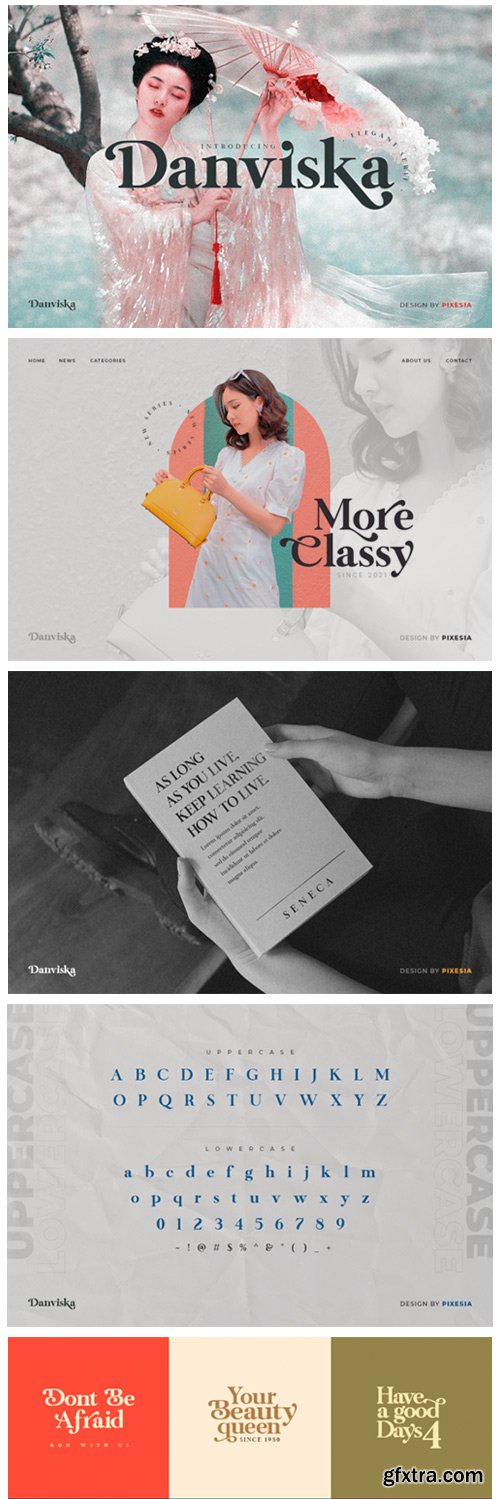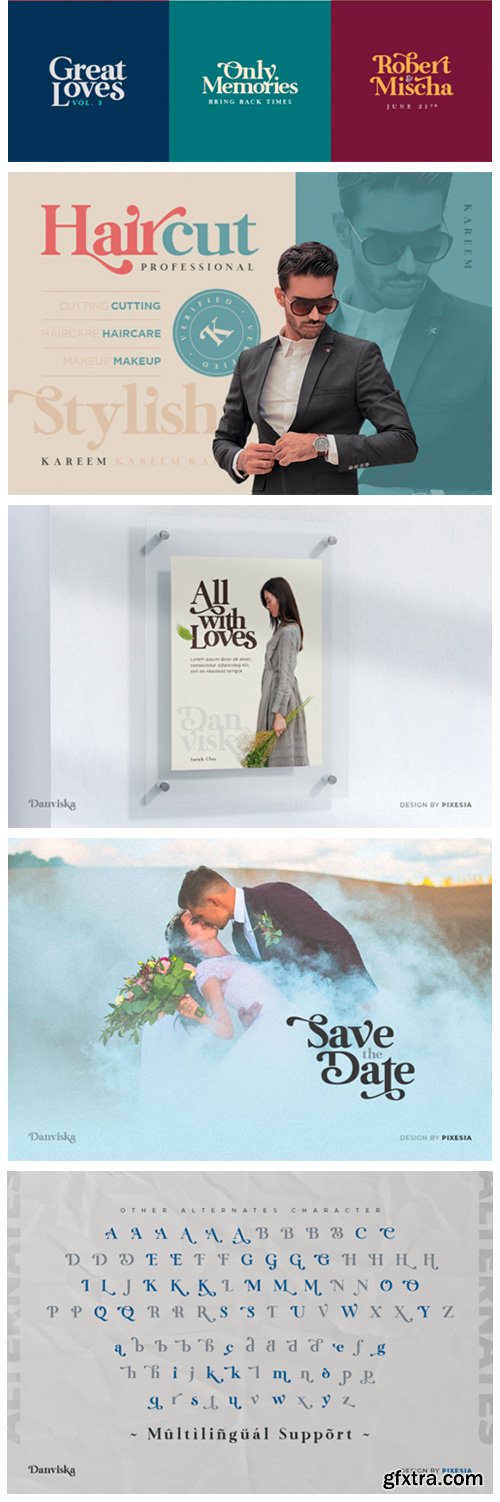
Danviska Font
Danviska is a stylish, thick lettered and imposing serif font. This font is PUA encoded which means you can access all of the glyphs and swashes with ease! Fall in love with its incredibly versatile style and use it to create spectacular designs!